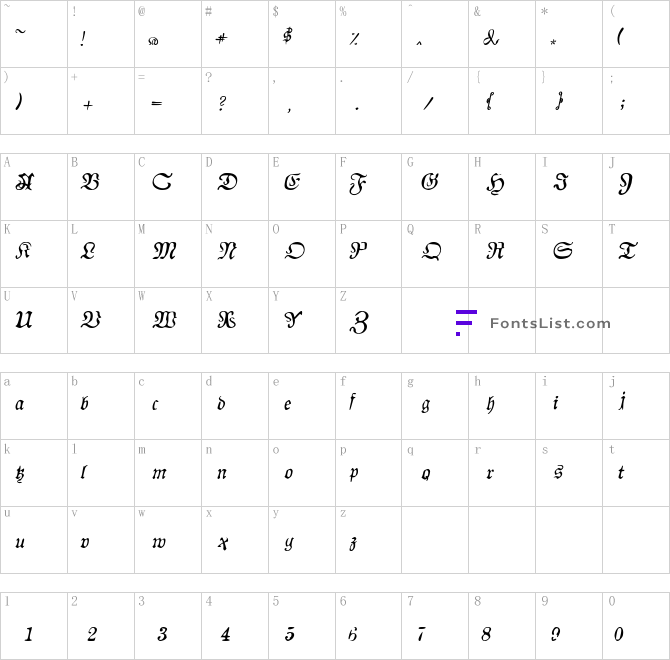
- Font Name:AuldMagick
AuldMagick-Italic.ttf is a very beautiful artistic font, AuldMagick-Italic.ttf is widely used in the design and printing of various books and pictures,AuldMagick-Italic.ttf has a strong visual impact,AuldMagick-Italic.ttf is a commonly used font in newspapers, magazines and books, and is used in posters, e-commerce Poster design, store design, logo design, font design and other fields.AuldMagick-Italic.